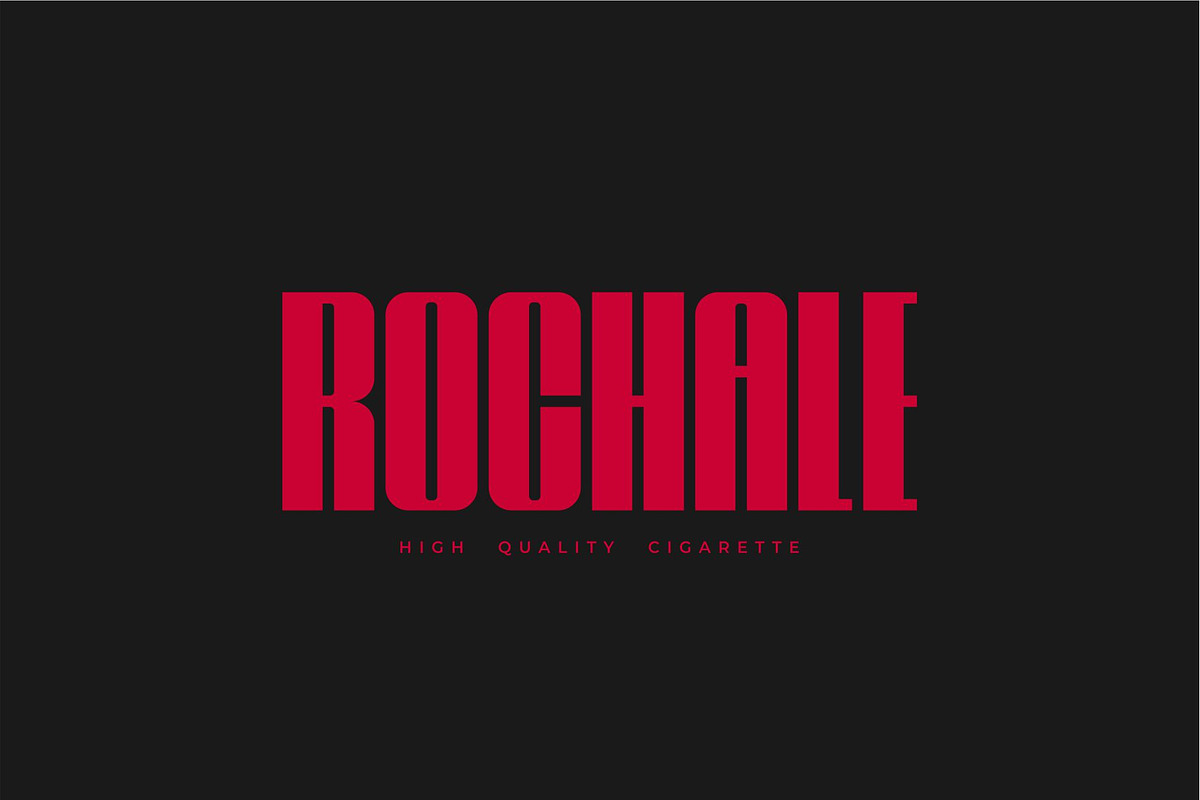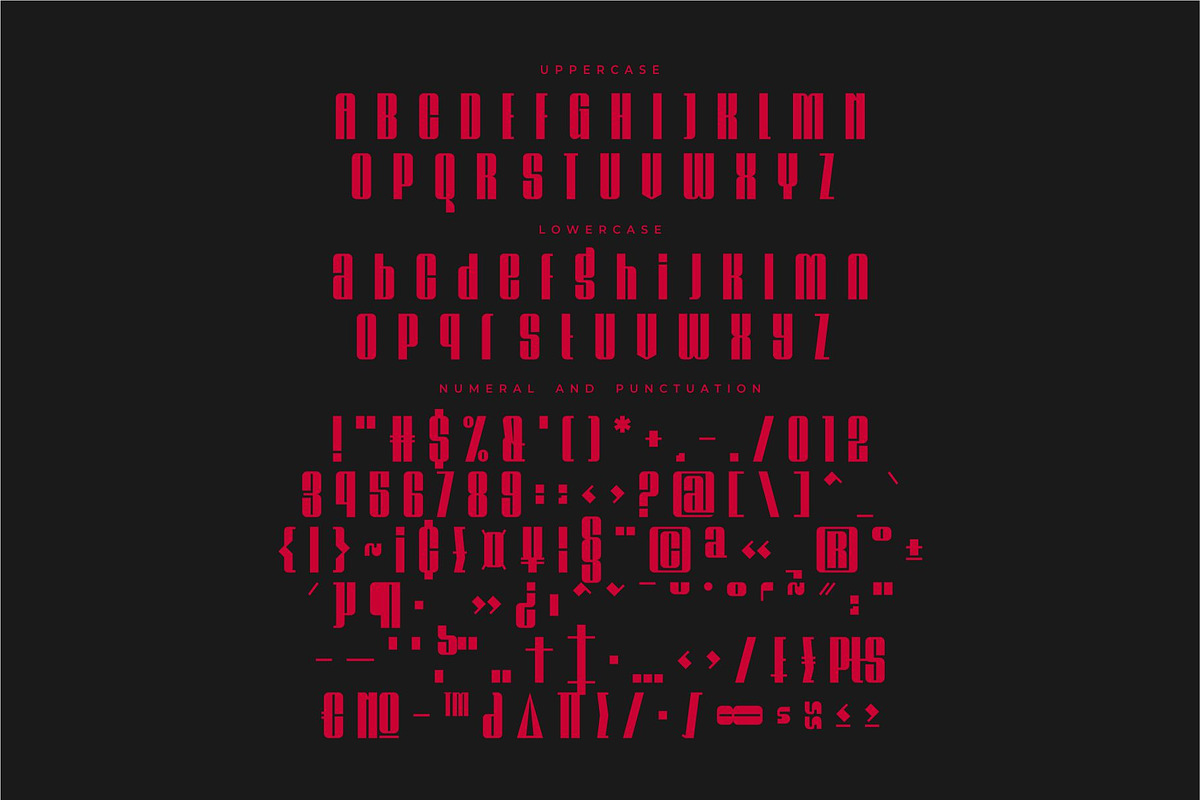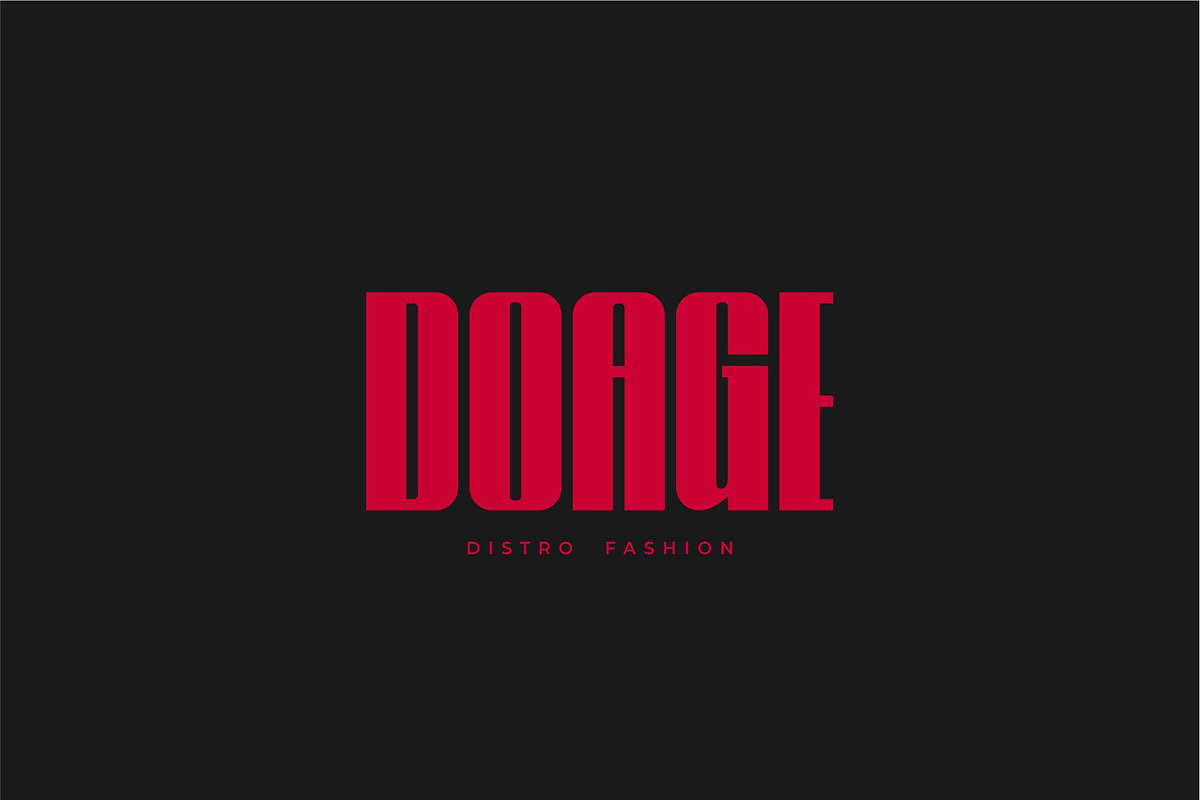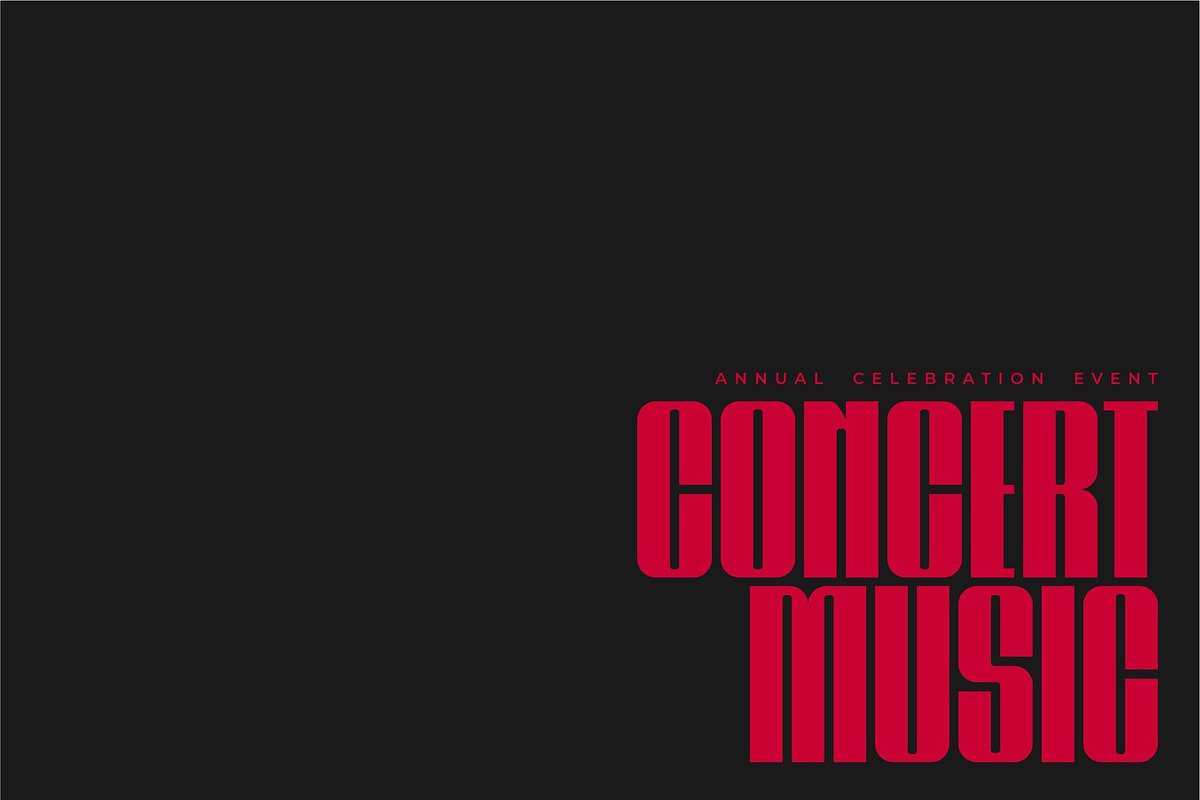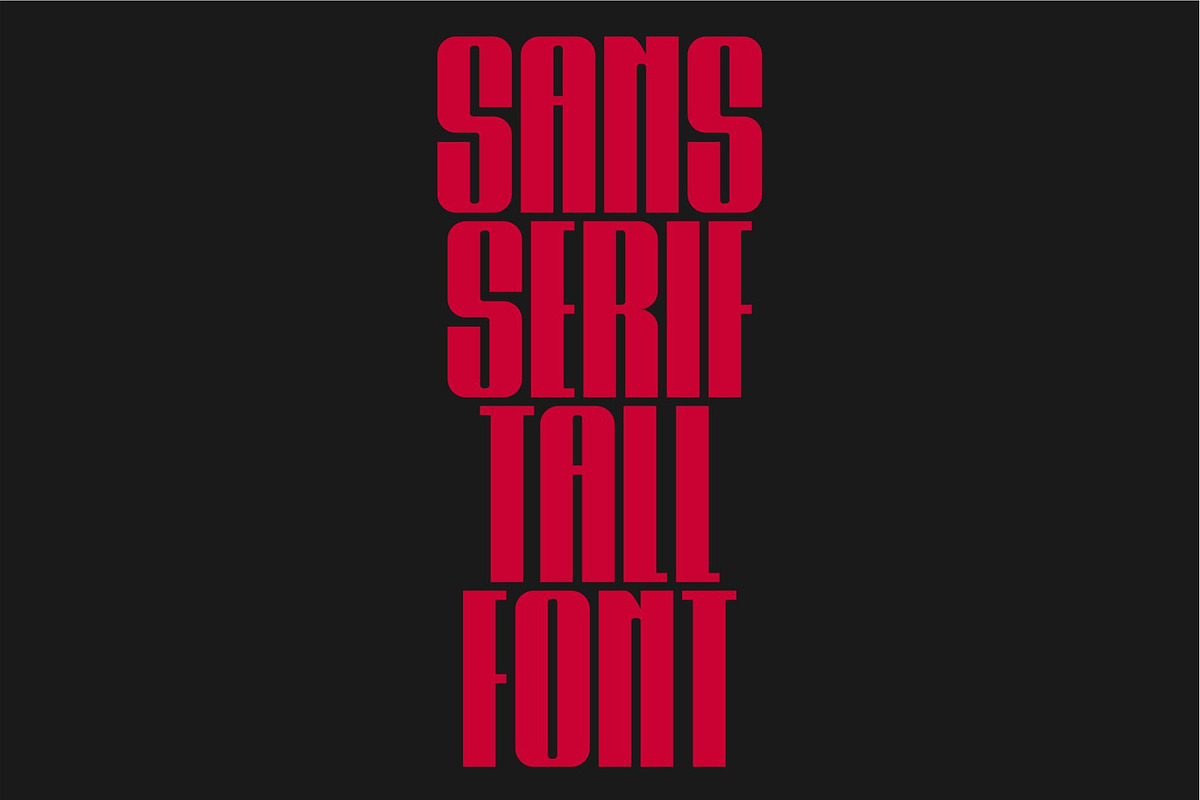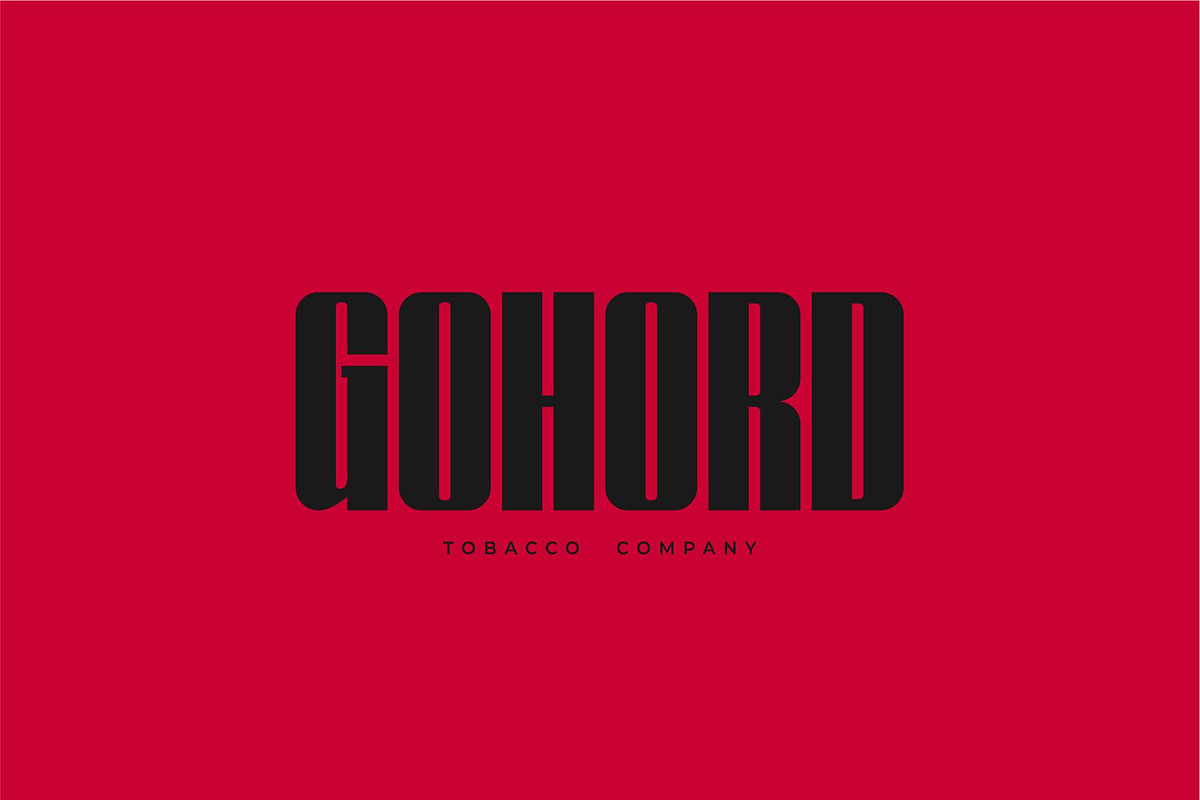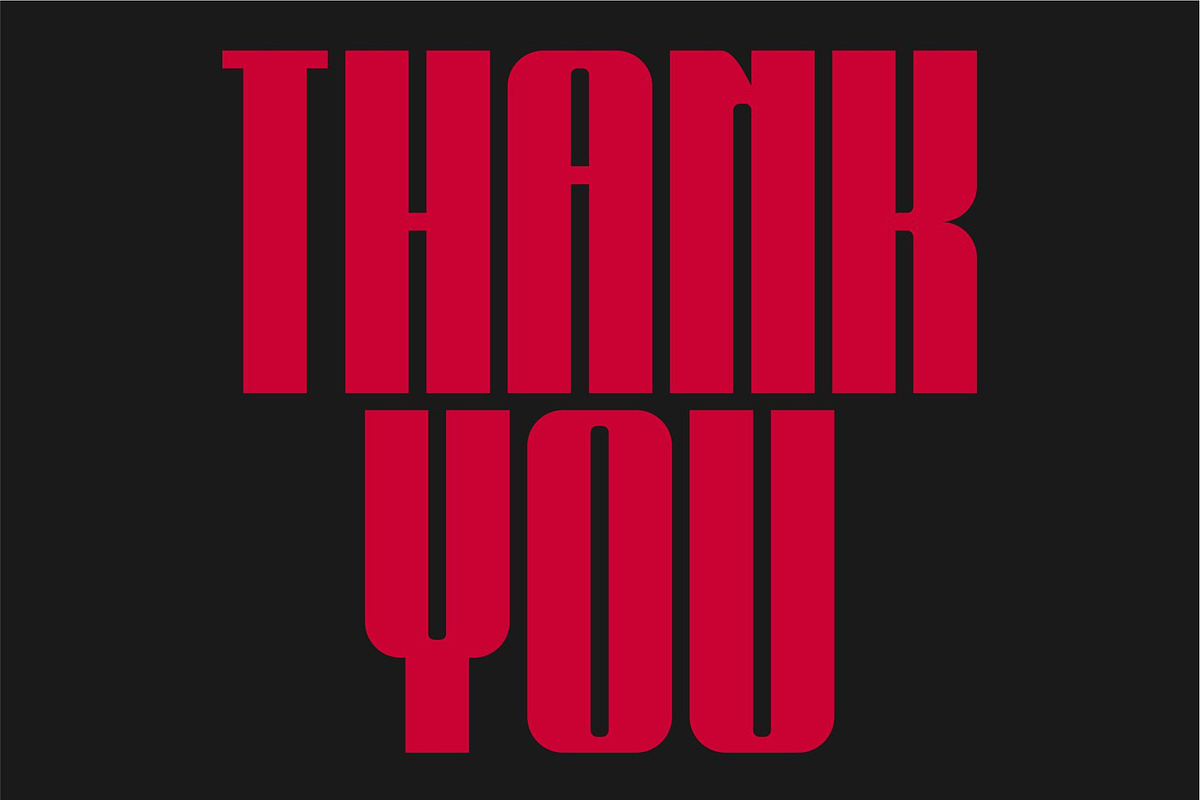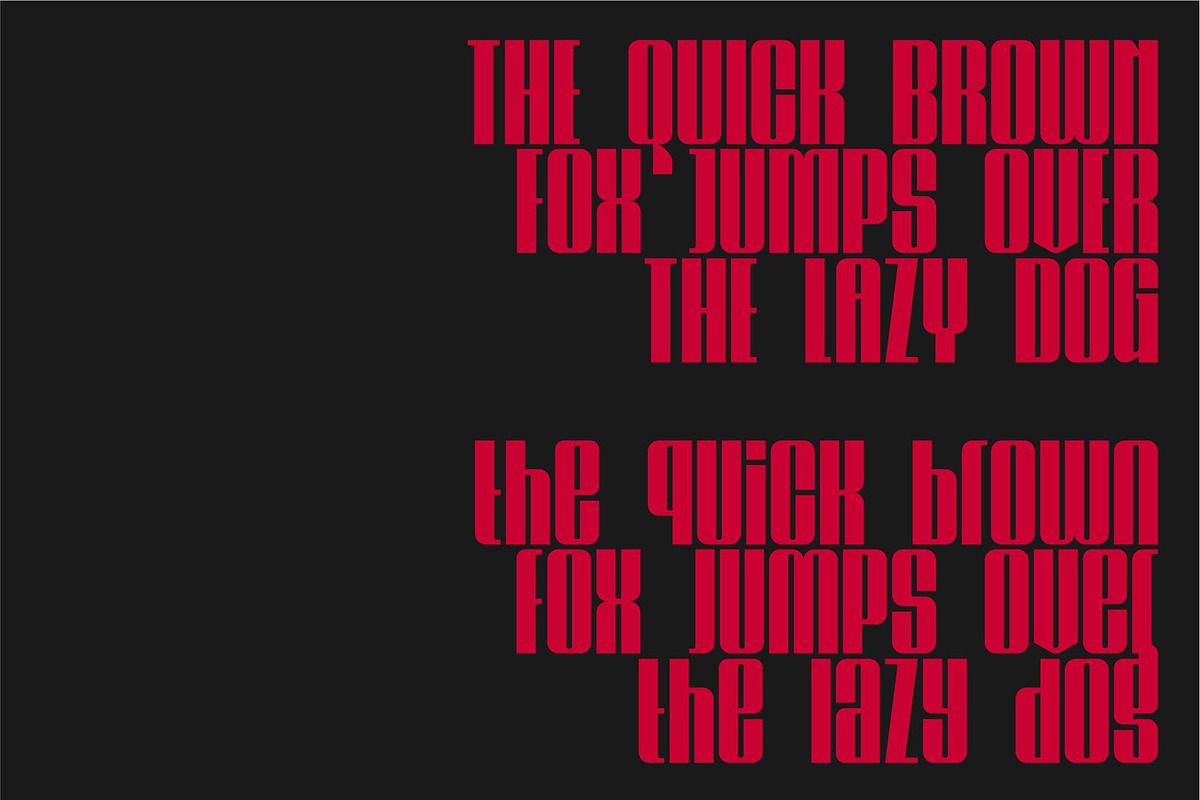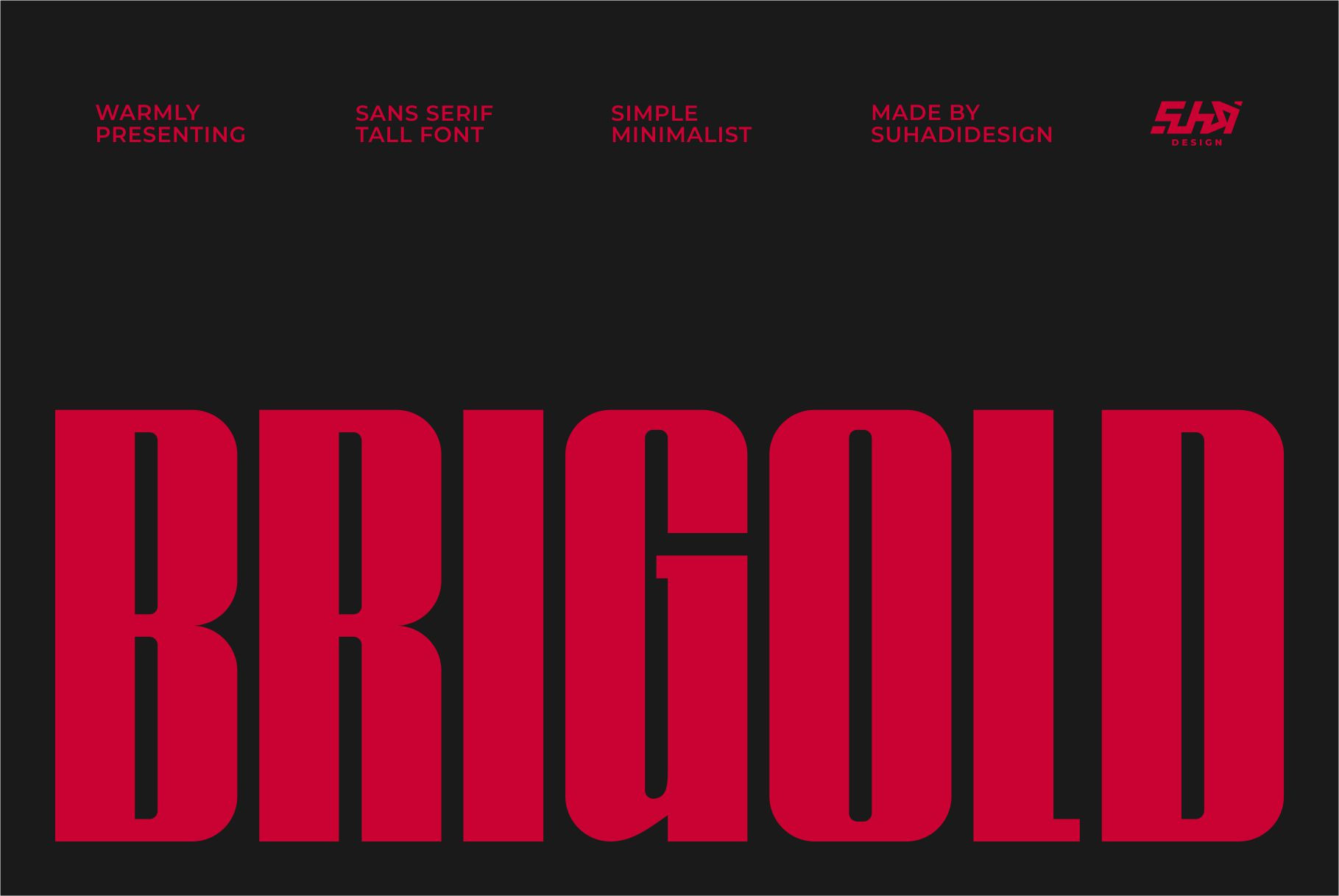
Brigold - Tall Font
Hey ladies and gentlemen! In response to market demand, I created an attractive, tall, and bold sans serif font. So, I decided to create this sans serif font. Brigold is a stylish sans serif font with a distinct style and an elegant, thin thickness that has become a market favorite. We've kept this font elegant, classy, modern, stylish, contemporary, and easy to use. Brigold is a great choice for magazines, book covers, shopping bags, packaging, logos, labels, fashion, posters, banners, bags, brand names, branding, quotes, and other projects. Brigold is here to take your designs to the next level.